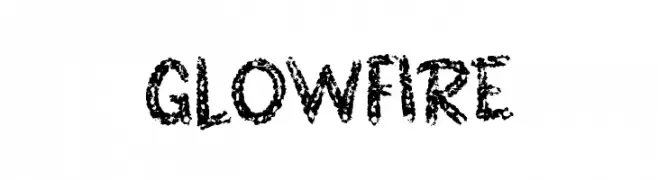
A geometric, modern font with clean lines and consistent stroke width.
A bold, geometric typeface with a modern and technical aesthetic.
A modern, geometric font with clean lines and a structured design.
A modern, geometric font with clean lines and a structured appearance.
A modern, geometric font with clean lines and a friendly appearance.
A bold, geometric font with a futuristic and angular design.
A dynamic and elegant script font with flowing, cursive letterforms.
A bold, dripping font with a spooky, haunted style.
A bold, elegant script font with flowing, interconnected characters.
A lively and dynamic script font with fluid, connected letterforms.
A cursive, handwritten-style font with elegant loops and swashes.
An ornate and decorative font with intricate curls and swirls.
A modern, playful font with geometric and rounded elements.
A playful, casual handwritten font with fluid strokes and a modern feel.
A bold, hand-drawn font with a playful and friendly style.
An elegant cursive font with flowing, ornate characters.
An elegant script font with flowing, interconnected characters and ornate flourishes.
An elegant script font with flowing, ornate letterforms and graceful swashes.
A playful, handwritten font with whimsical loops and curls.
A playful, romantic cursive script with dynamic strokes and a handwritten feel.
A bold, expressive script font with a handwritten style.
An elegant, cursive font with flowing, ornate characters.
A sophisticated, flowing script font with elegant cursive letterforms.
An elegant script font with flowing curves and intricate loops, reminiscent of classic calligraphy.
A playful, bold handwritten font with dynamic brush-like strokes.
A bold, jagged, and aggressive font with a hand-drawn, brush-like appearance.
An elegant serif font with high contrast and decorative flourishes.
A playful and elegant handwritten script font with fluid, artistic characters.
A fluid and dynamic handwritten cursive font with elegant letterforms.